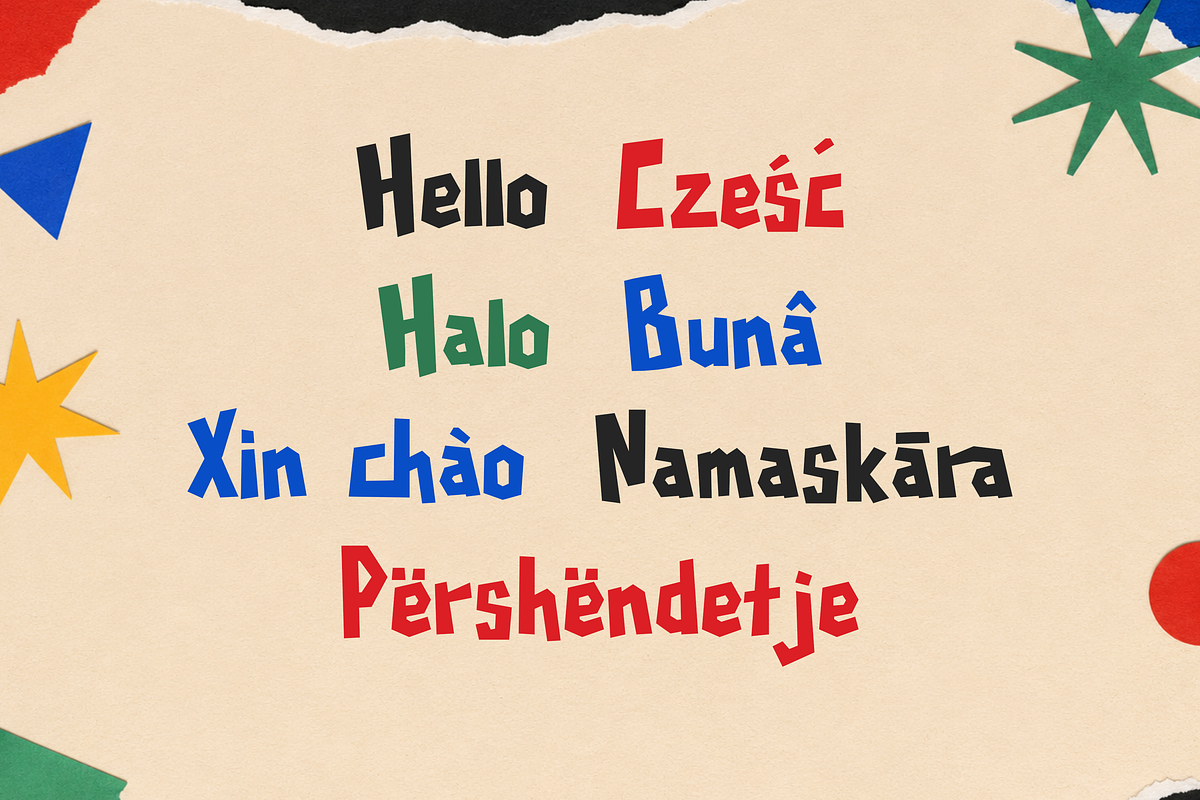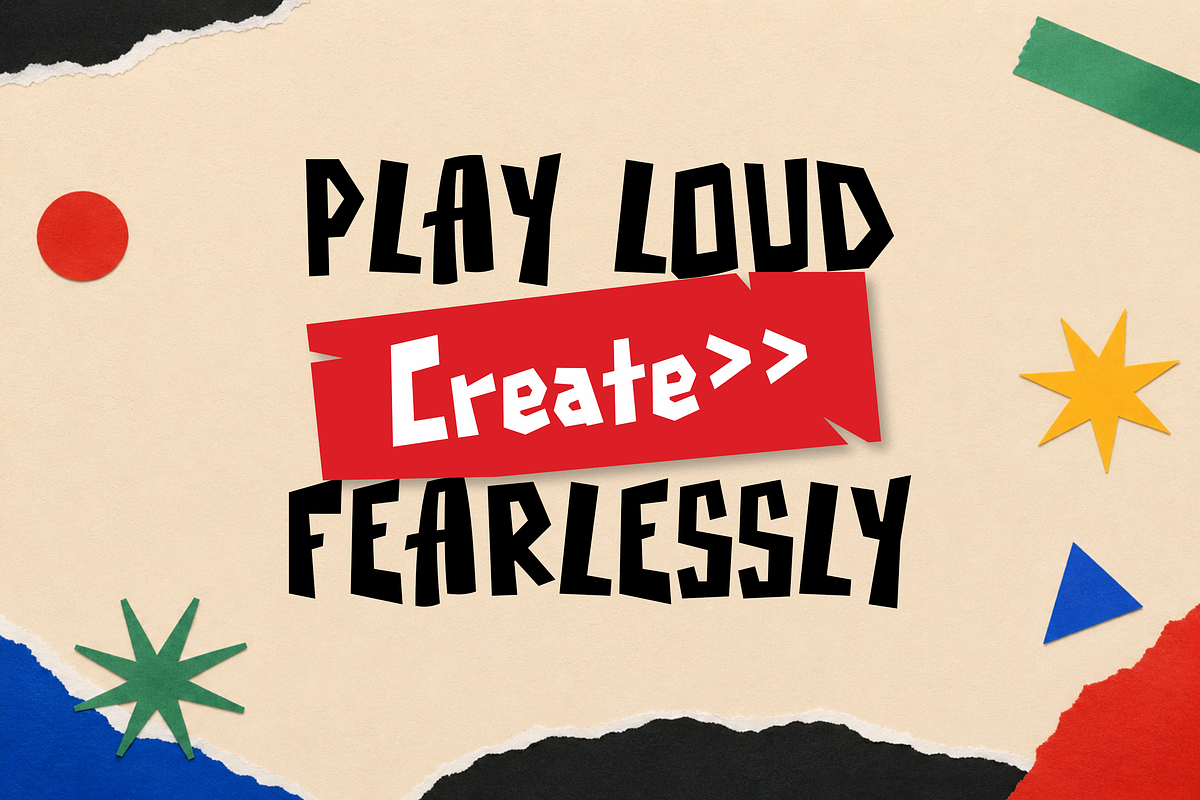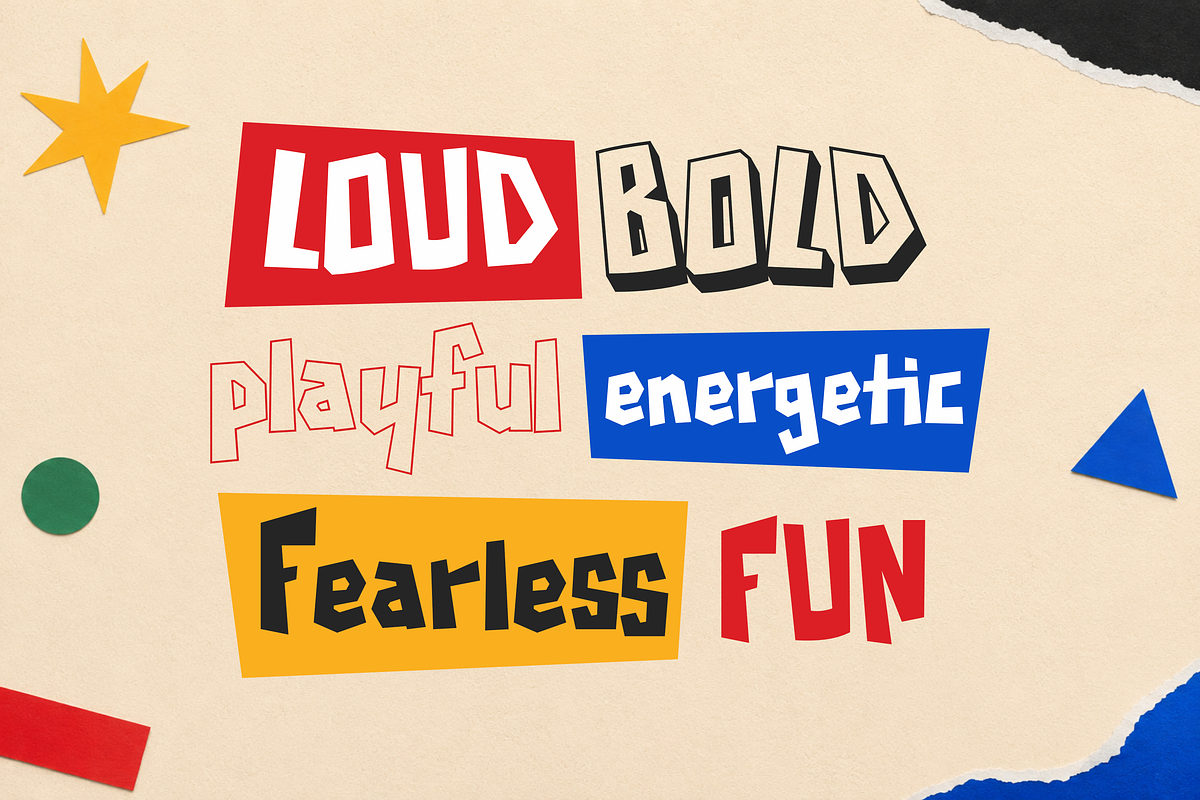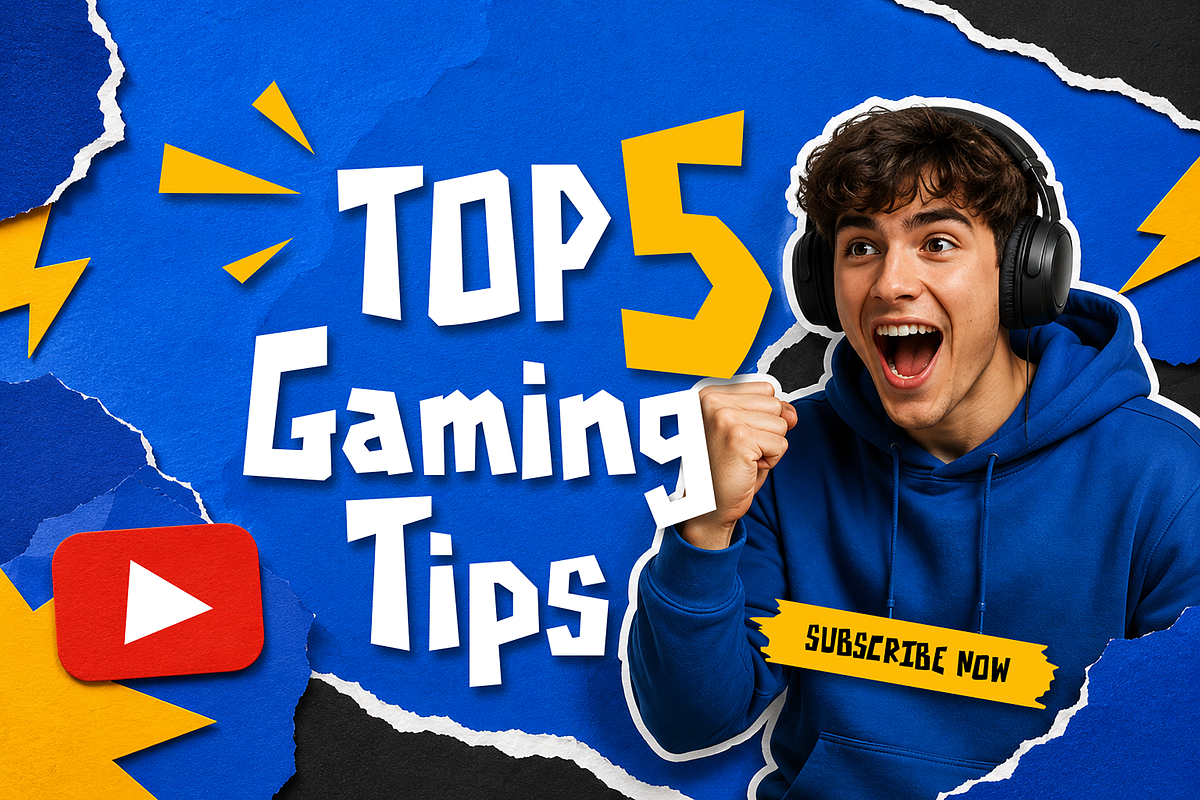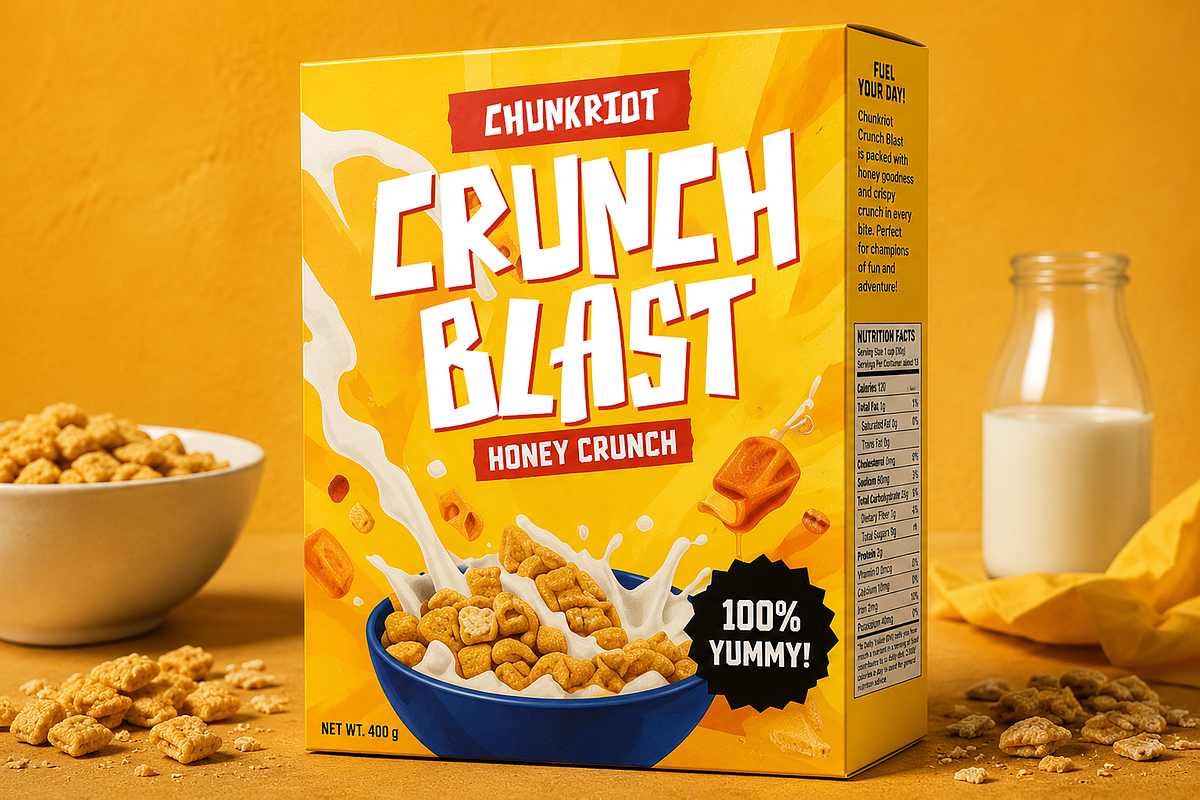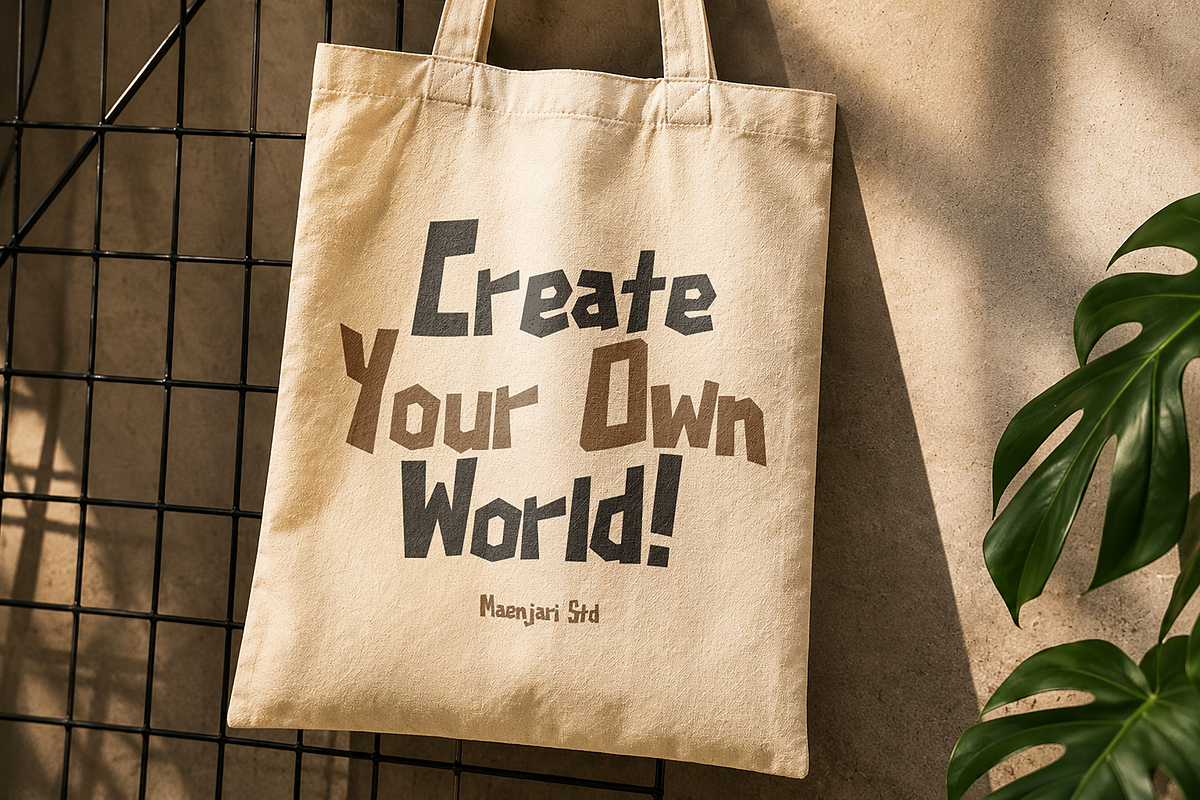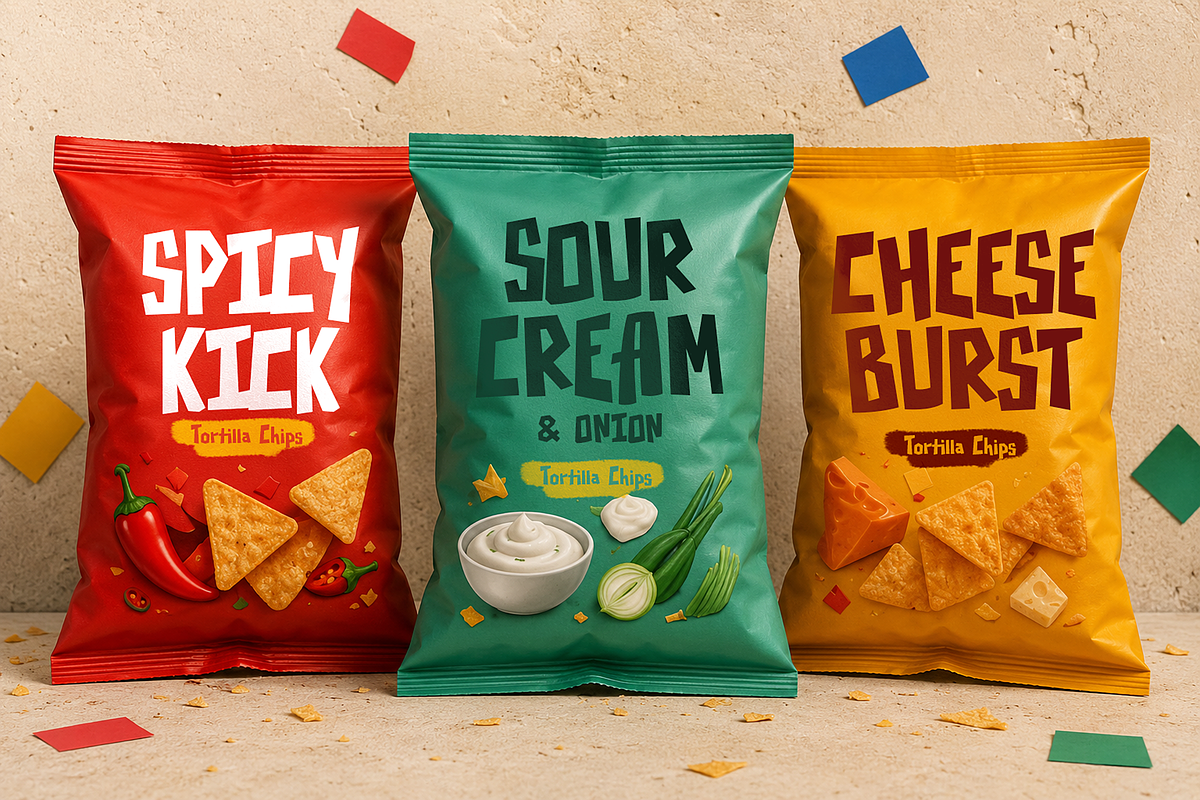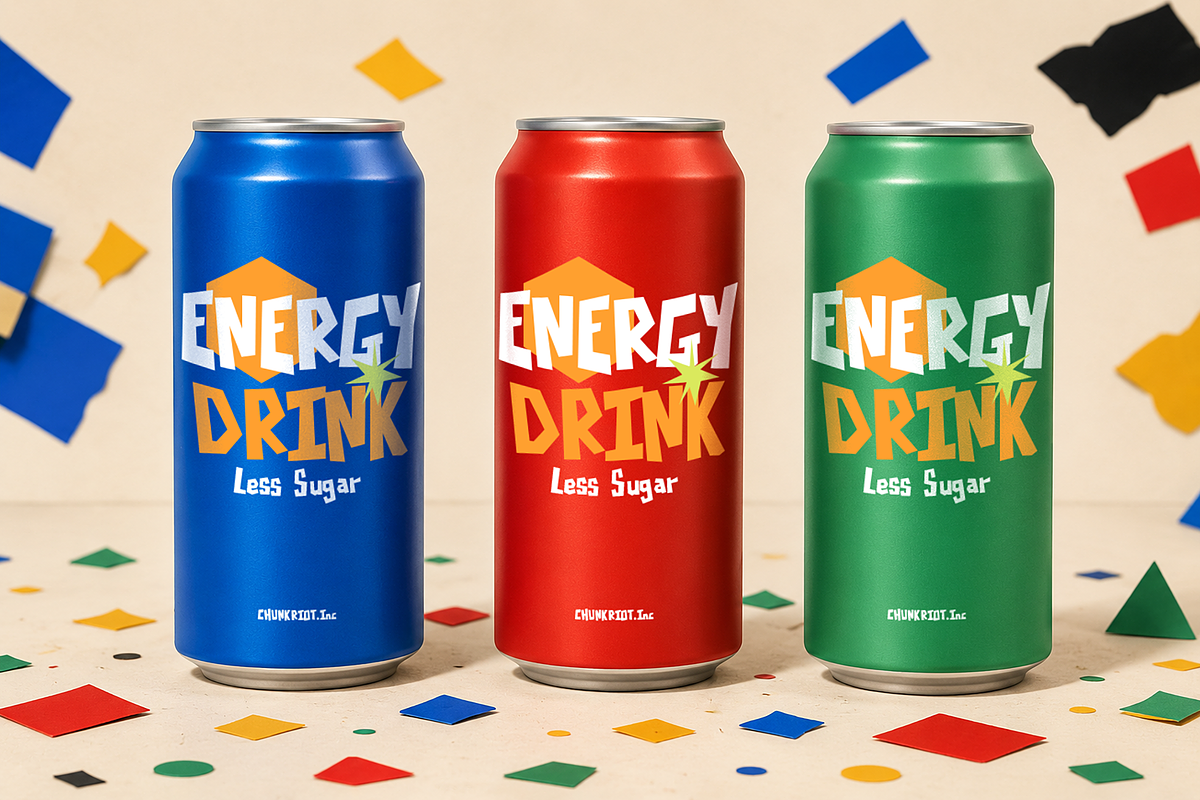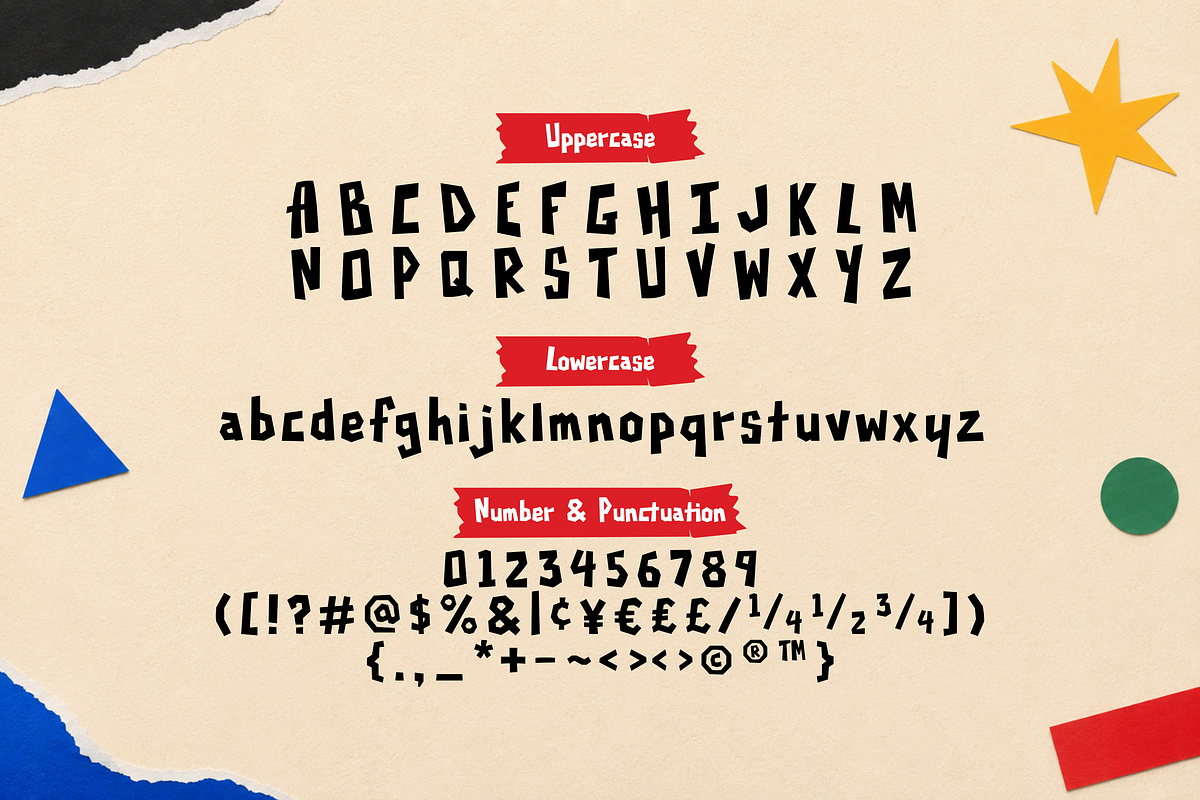
Chunkriot - Playful Display Font
Bring a burst of raw energy to your designs with Chunkriot, a chunky and playful display font crafted by Maenjari Studio. With its hand-cut, angular edges and paper-cut aesthetic, this typeface is built for projects that require a loud, friendly, and spirited voice.
Chunkriot is available in 3 styles: Regular, Outline, and Hollow. These styles can be layered together or used individually to build striking visual compositions on poster art, apparel, book covers, and social media templates. Its blocky structure makes it highly readable in large formats, while its irregular details add a charming, tactile touch to your work.
From breakfast cereal boxes and bold snack packaging to high-energy drink designs and gaming thumbnails, Chunkriot adapts well across a wide range of creative applications. Complete with multilingual characters, numbers, and standard punctuation, it provides a solid foundation for building impactful layouts.
3 Styles: Regular, Outline, and Hollow
Full Uppercase & Lowercase Character Set
Multilingual Support for global designs
Tailored for food packaging, youth branding, and posters